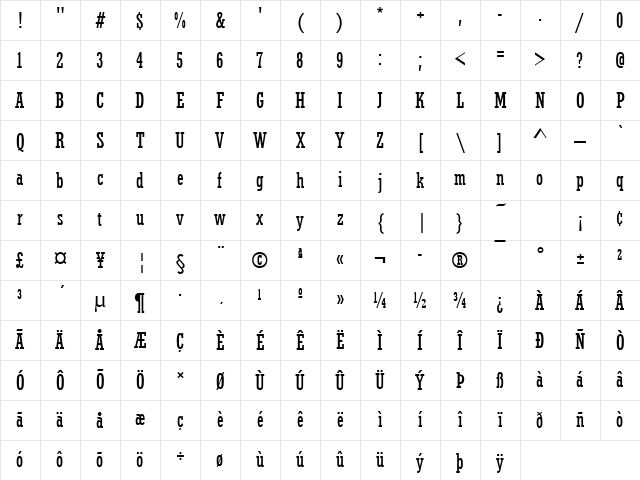
Stymie Becker Reg Cond Regular
Complete Stymie Becker Reg Cond Regular glyph index. Displaying only characters natively supported by Stymie Becker Reg Cond Regular font.
Design Context for Stymie Becker Reg Cond
Stymie Becker Reg Cond is a composed and adaptable typeface that performs quietly and consistently across a wide range of design contexts. Its narrow stance lets it pack a punch even in space-constrained designs.